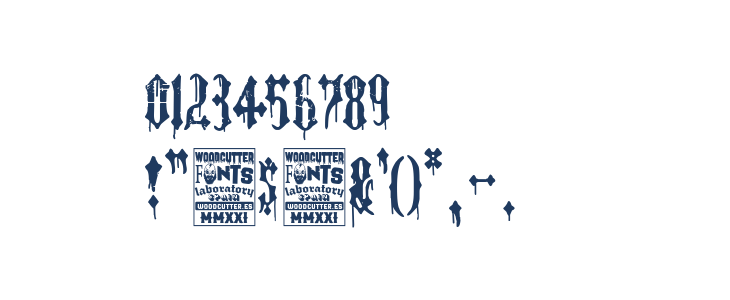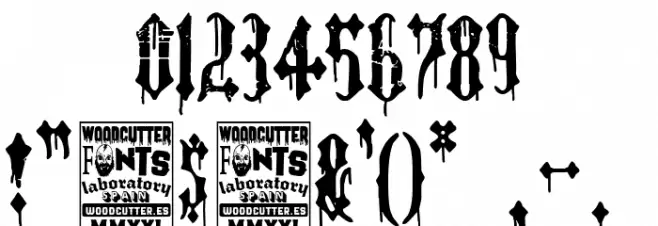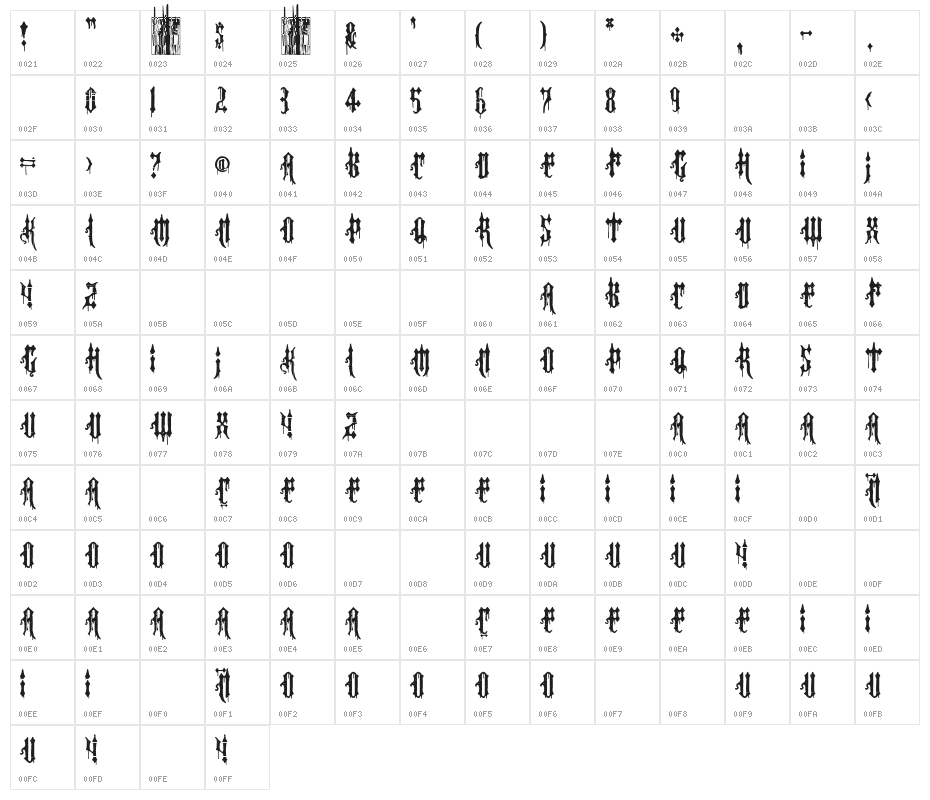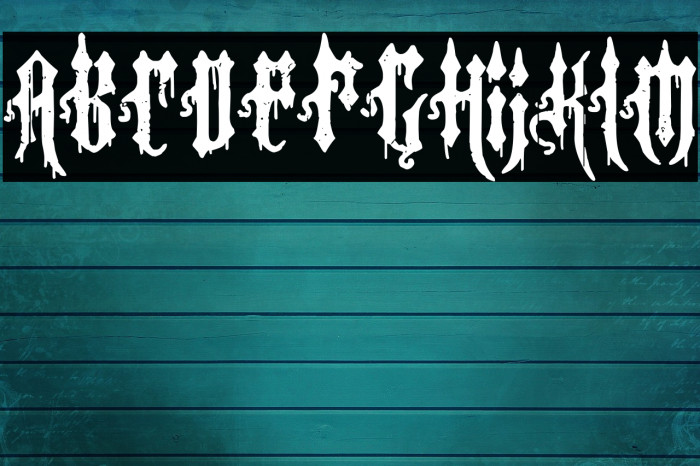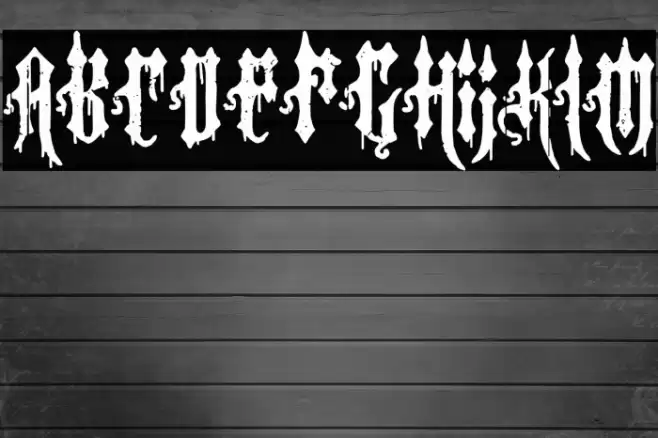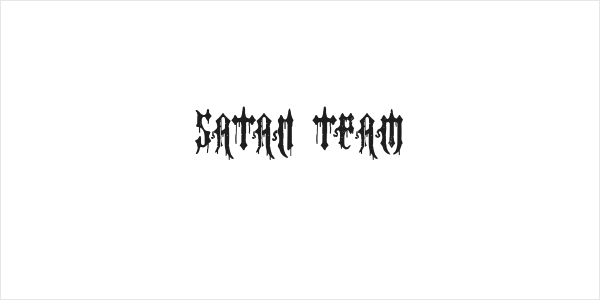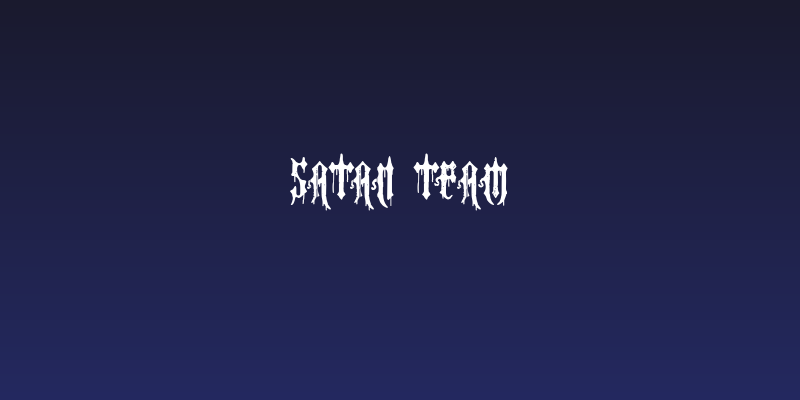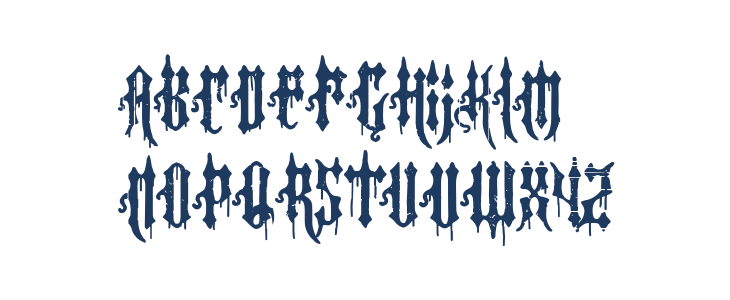
Satan Team Font
Satan Team Description
This font features a bold, dramatic style with intricate details reminiscent of Gothic or medieval script. The characters are highly decorative, with sharp, pointed edges and flourishes that give an intense, almost aggressive appearance. The uppercase and lowercase letters maintain a consistent style, with a strong vertical emphasis and elaborate serifs. Numbers and special characters follow the same ornate design, ensuring a cohesive look across all elements. The font's distressed texture adds a vintage or worn effect, enhancing its dramatic and historical feel.
| Use Case | Logos, Posters, Decorative headings |
| Proposed Projects | Ideal for projects requiring a dramatic and historical touch, such as horror-themed posters, medieval event invitations, or band logos. |